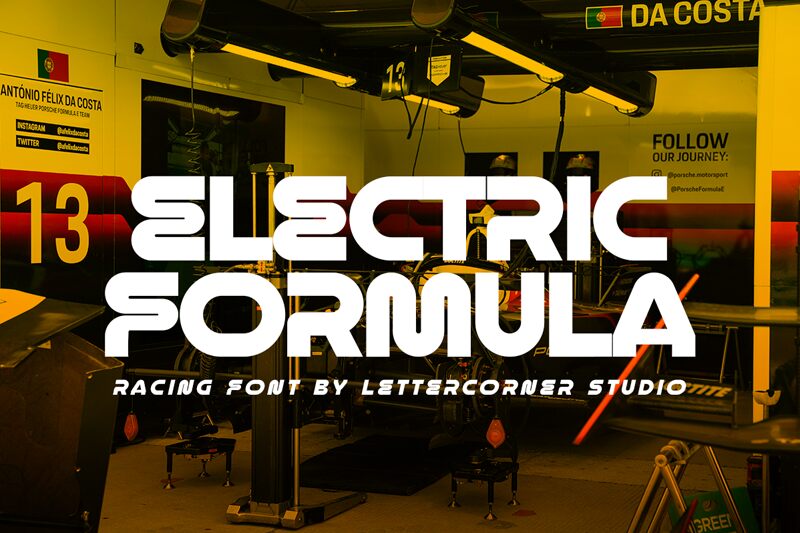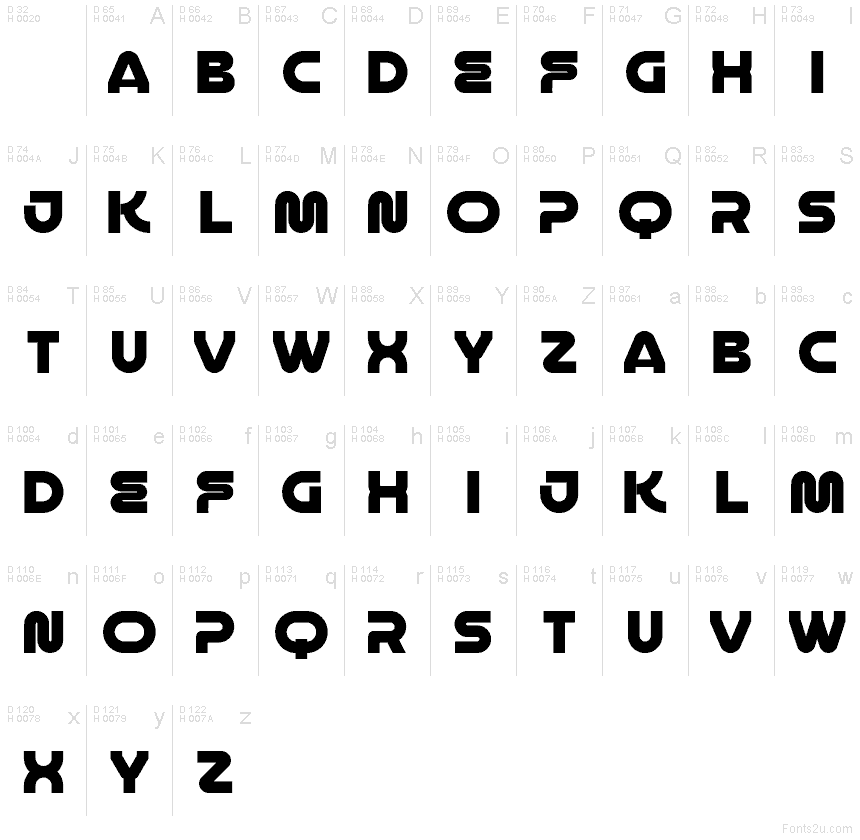
Electric Formula
Electric Formula font by Mocha Frappuccino is a free bold retro racing display font. It stands out with sculpted, track-like channels cut into chunky strokes, rounding at the corners like polished bodywork. The rhythm is tight and streamlined, with oval counters and compressed proportions that read like motion lines—clean, aggressive, and unmistakably fast.
Using Electric Formula, headlines jump off the grid for motorsport posters, esports teams, energy drink cans, event badges, car-meet flyers, and YouTube thumbnails. This free font shines when set big with a touch of extra tracking to let the grooves breathe. Pair it with a simple, neutral grotesk for body copy to keep the speed lines front and center.